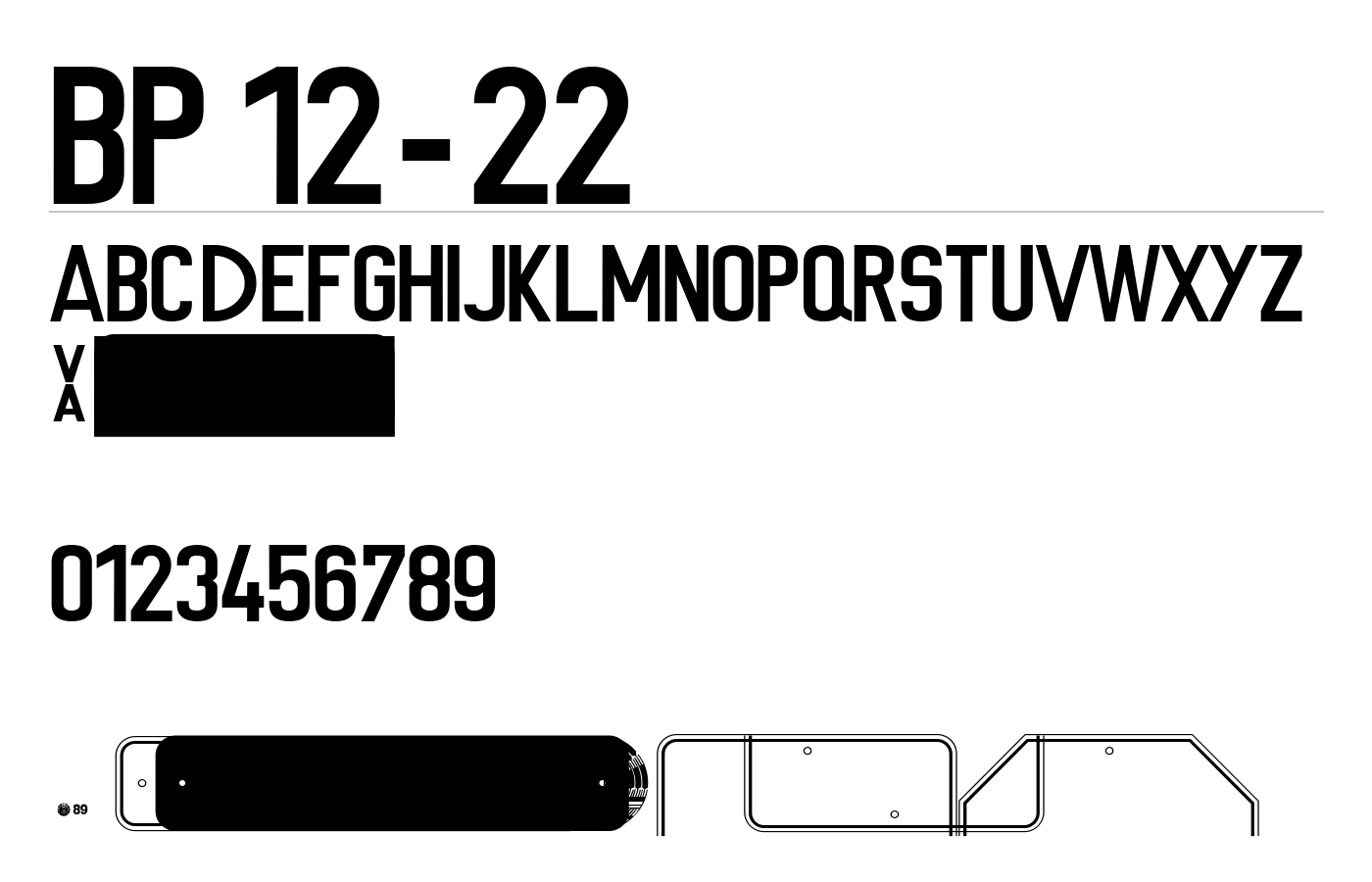
BP 12-22 is a bold, condensed sans-serif font featuring a clean and modern look with uniform stroke widths and tall, narrow letterforms. Its strong geometric shapes and clear readability make it ideal for striking headlines, branding, and display uses where an impactful, contemporary style is desired. This font works well in contexts that need a confident, no-nonsense appearance, such as posters, logos, and editorial titles.
| Designer | Peter Wiegel |